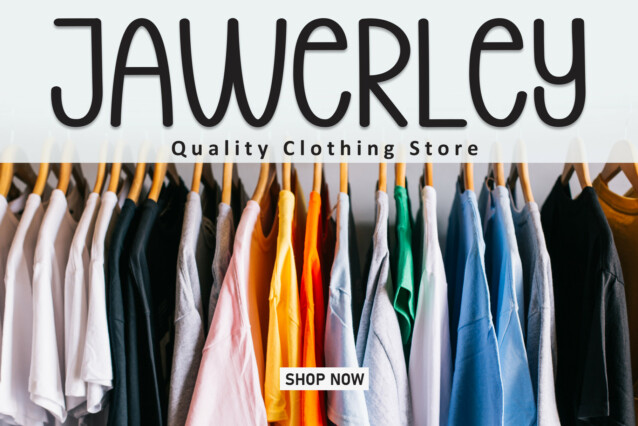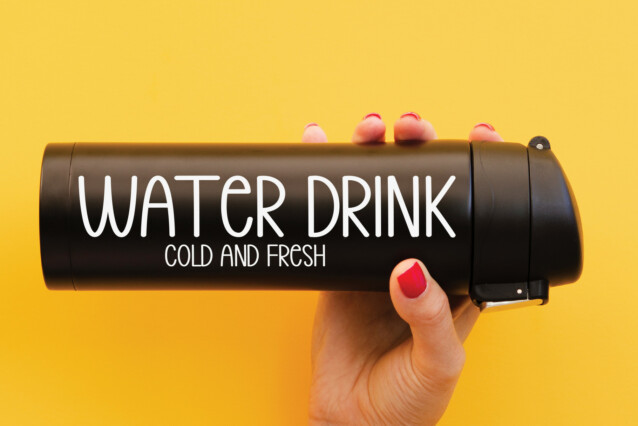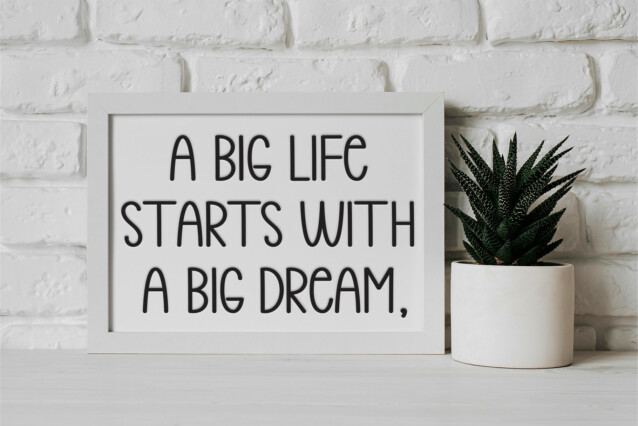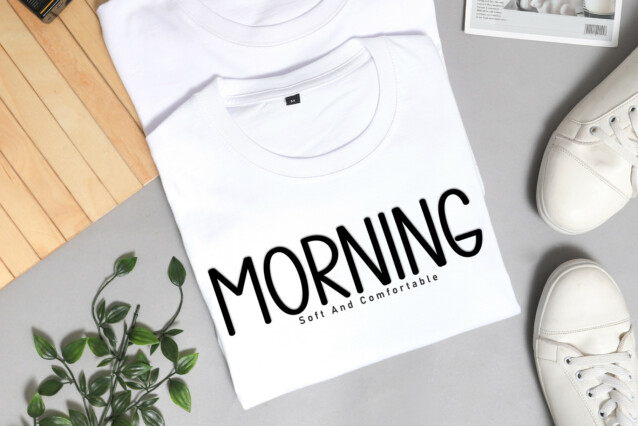
Holiday Sunday Display Font
Holiday Sunday Display Font has a strong personality which makes it a perfect choice for display projects. Perfectly suited for a wide range of applications from branding and logos, to candy and food packages, Holiday Sunday is a bright and fun typeface with a unique appearance.